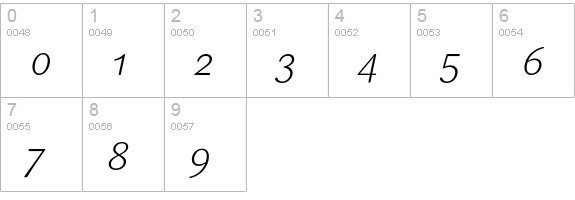
Sari-LightItalic Font Details
Sari-LightItalic font is a versatile and elegant typeface that exudes sophistication and charm. With its delicate curves and graceful slant, this font adds a touch of refinement to any design project. The Sari-LightItalic font is meticulously crafted to bring a sense of lightness and grace to your typography. This font is perfect for various design purposes, from creating beautiful logos and branding materials to designing captivating invitations and elegant stationery. Its slender and italicized form adds a unique and stylish flair to your text, making it perfect for adding emphasis or creating a subtle sense of movement. One of the best things about the Sari-LightItalic font is that it is free! Yes, you read that right. This stunning typeface is freely available to download at FontsMarket.com. Now you can enhance your designs with this exquisite font without having to worry about any additional costs. Whether you are a professional designer or someone looking to add a touch of class to your personal projects, the Sari-LightItalic font is a must-have in your font library. Its versatility and beauty make it an excellent choice for various design applications, ensuring that your creations will stand out from the crowd. So why wait? Head over to FontsMarket.com now and download the Sari-LightItalic font for free. Bring your designs to life with this elegant and captivating typeface and let your creativity shine.